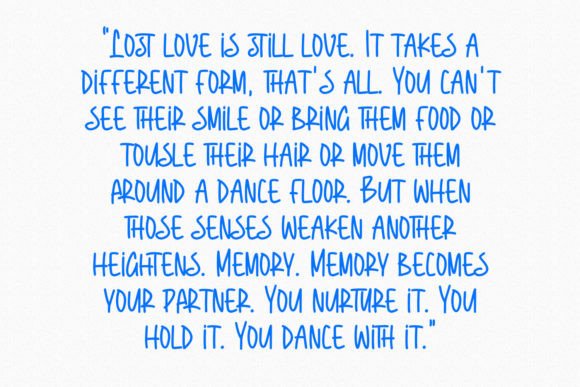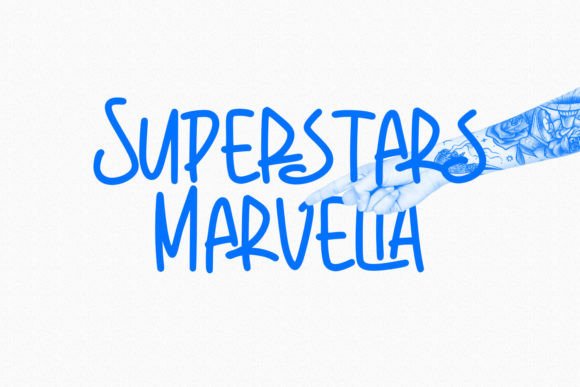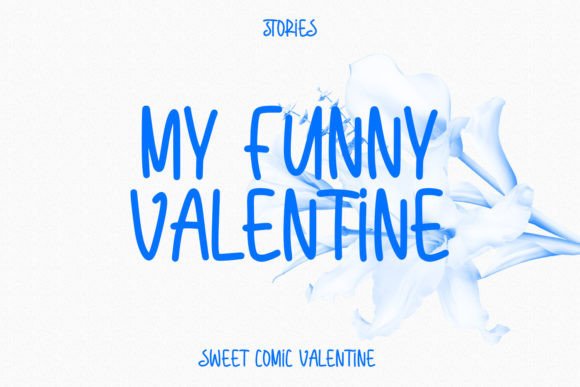
Introduction to Simplywhiz Font
As designers, we’ve all been there – staring at a blank page, trying to come up with the perfect font to bring our creative project to life. It’s that moment when you need a font that speaks to you, something that adds a touch of personality and whimsy to your design. For me, that moment came when I stumbled upon the Simplywhiz Font – a cool and casual handwritten font that’s perfect for adding a dash of fun to your projects.
What I love about the Simplywhiz Font is its high quality and versatility. With its transparent background, it’s a design resource that can be easily incorporated into any project, from branding to editorial design. And the best part? It’s a free download, making it accessible to designers of all levels. Whether you’re working on a large-scale campaign or a small personal project, the Simplywhiz Font is sure to bring a smile to your face and a touch of creativity to your design.
Key Features of Simplywhiz Font
- Simplywhiz Font is a versatile font suitable for a wide range of applications, including digital and print media.
- Features a transparent background, allowing for seamless integration with any design or background.
Honest Review: Simplywhiz Font
I recently stumbled upon the Simplywhiz Font while searching for a unique design resource for my creative project. I must say, I was quite impressed with its high quality and versatility.
- What works well: ✨ The transparent background option is a great feature that allows designers to easily integrate the font into their designs without any distractions.
However, I did encounter a few limitations with the Simplywhiz Font:
- ⚠️ Limited font styles: While the font is highly customizable, it’s limited to a few pre-defined styles, which can be a bit restrictive for designers who prefer more flexibility.
- ⚠️ Not ideal for large-scale projects: The font may not be suitable for large-scale projects that require a high volume of text, as it can become difficult to manage and maintain.
Overall, I would give the Simplywhiz Font a solid 4 out of 5 stars. It’s a great design resource for creative projects, but it’s not perfect. With a few tweaks and additions, it has the potential to become an even more valuable resource for designers.
The Simplywhiz Font is a versatile and high-quality design resource perfect for creative projects. It offers a transparent background, making it easy to customize and blend with other elements.
Tips for Getting the Most Out of Simplywhiz Font
Use the Simplywhiz Font in combination with other design elements to create a cohesive and visually appealing design. Experiment with different font sizes, colors, and styles to achieve the desired look.